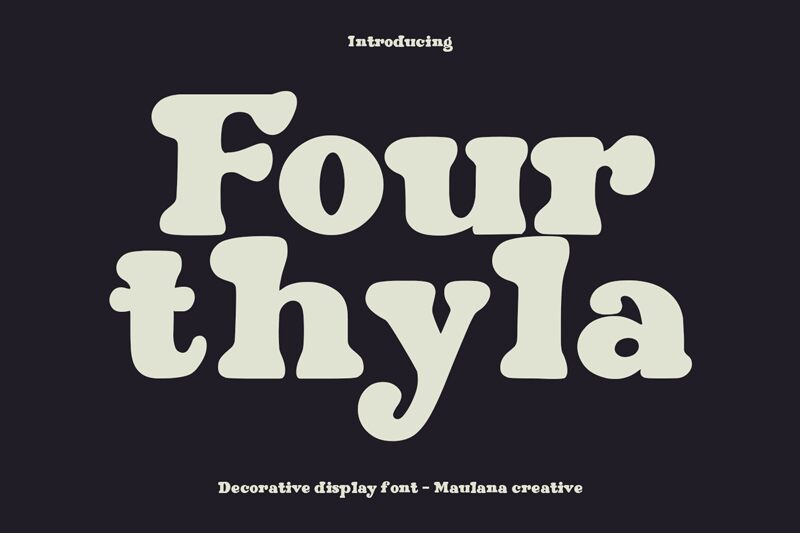
Fourthyla Free Regular
Fourthyla, a bold and groovy display font by Maulana Creative, brings a unique and energetic vibe to your projects. Its semi-expanded width adds visual interest and makes it suitable for various design endeavors.
Use Fourthyla to create eye-catching logos, vibrant posters, or funky album covers. Its bold weight enhances legibility, making it perfect for impactful headlines and attention-grabbing marketing materials. Whether you're working on retro-inspired designs or modern branding campaigns, Fourthyla is the go-to font that will make your creations stand out from the crowd.